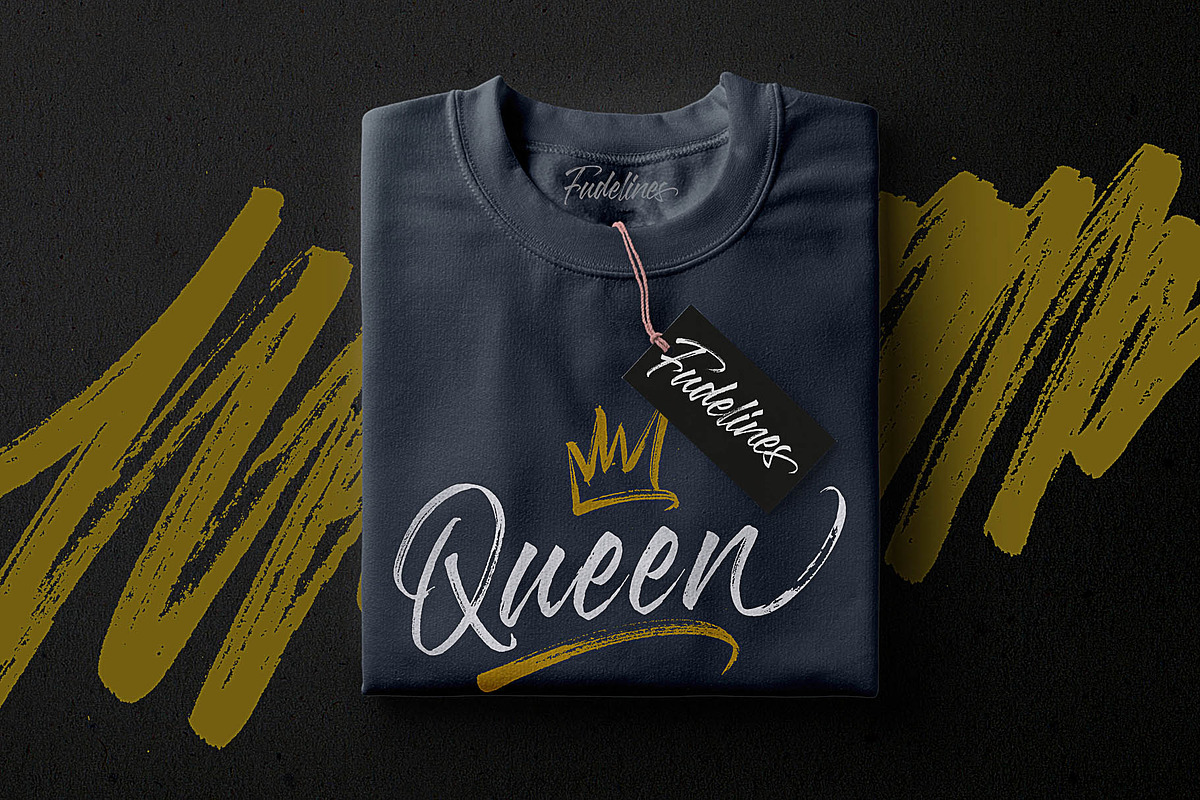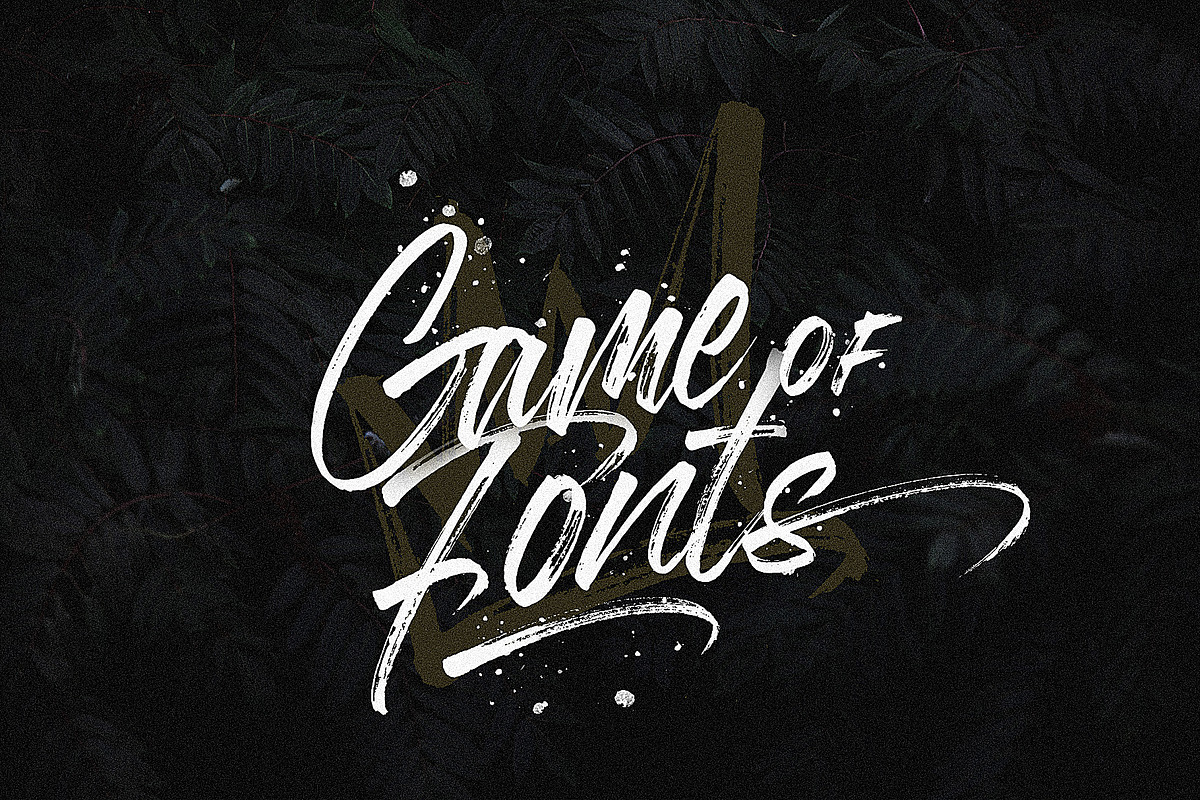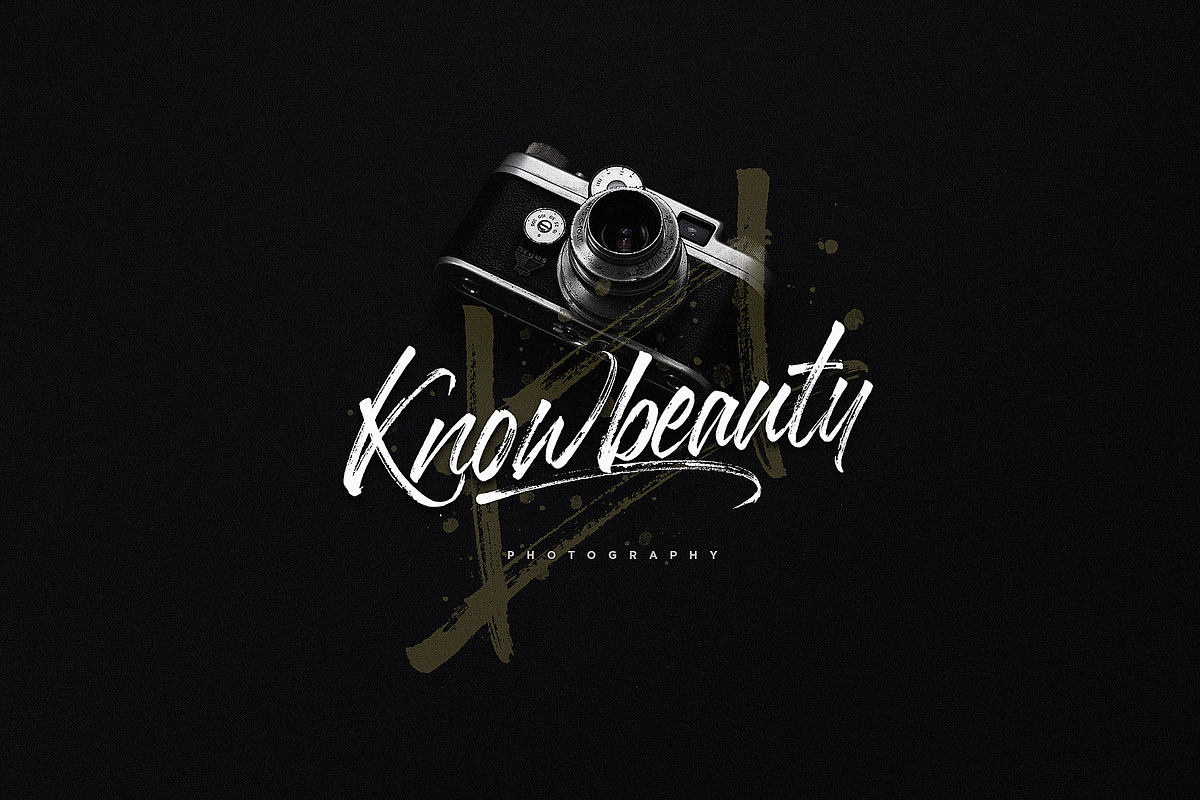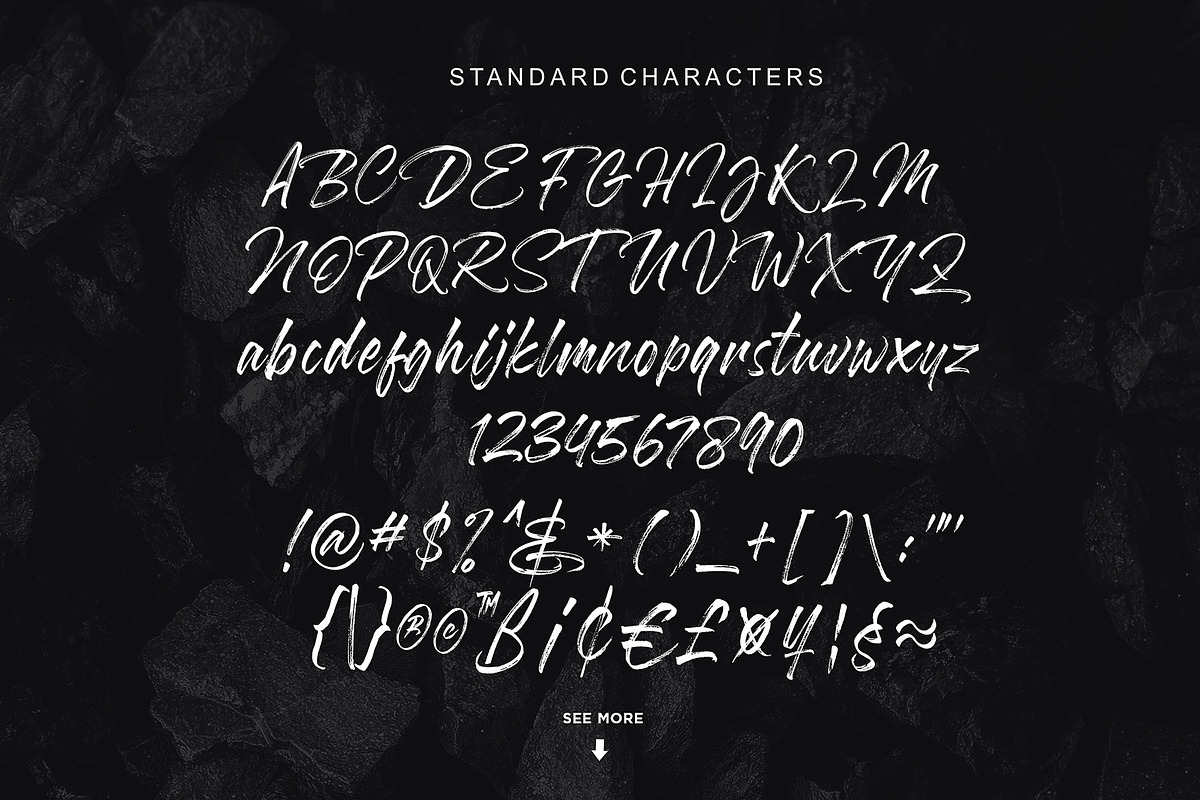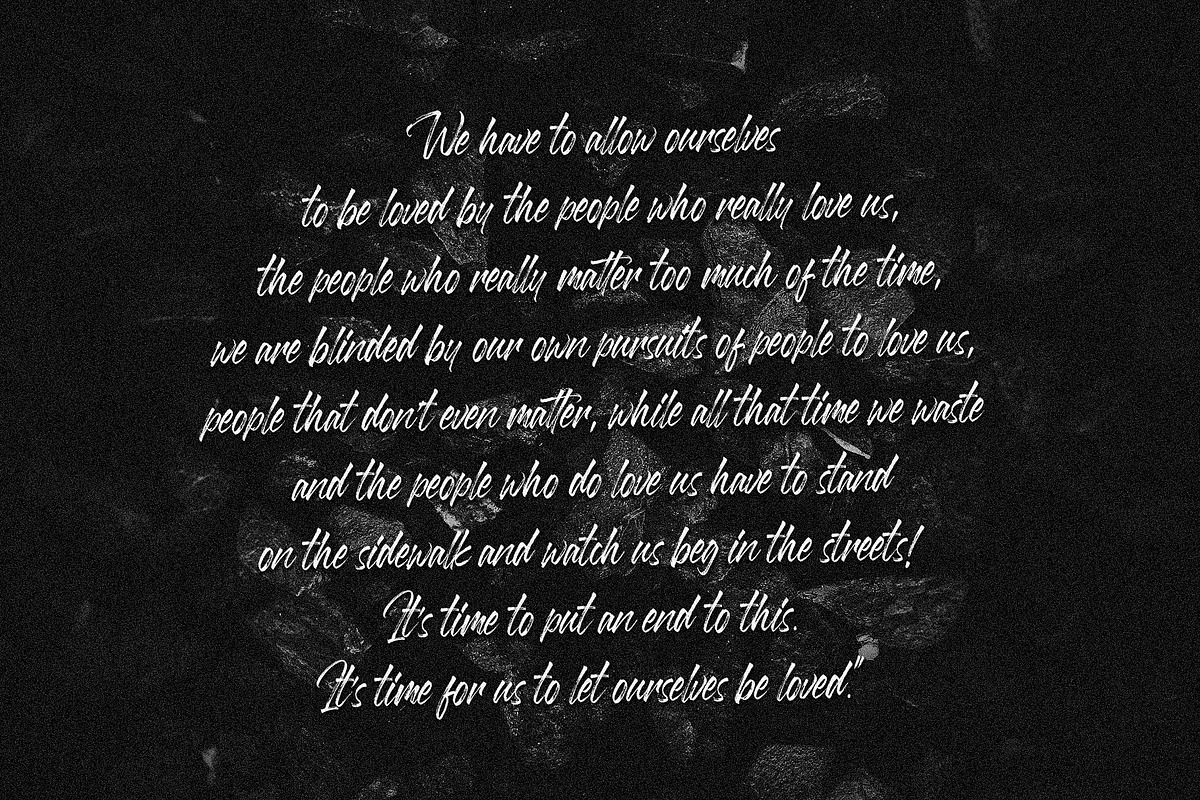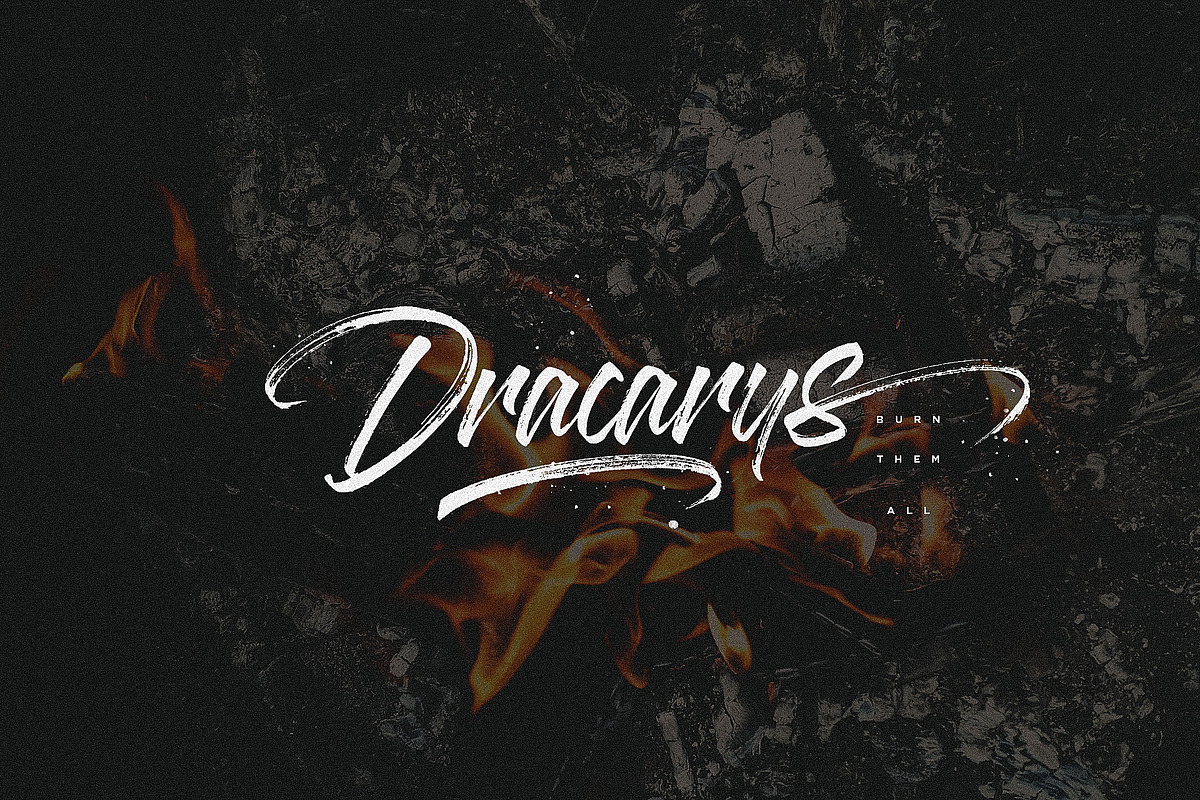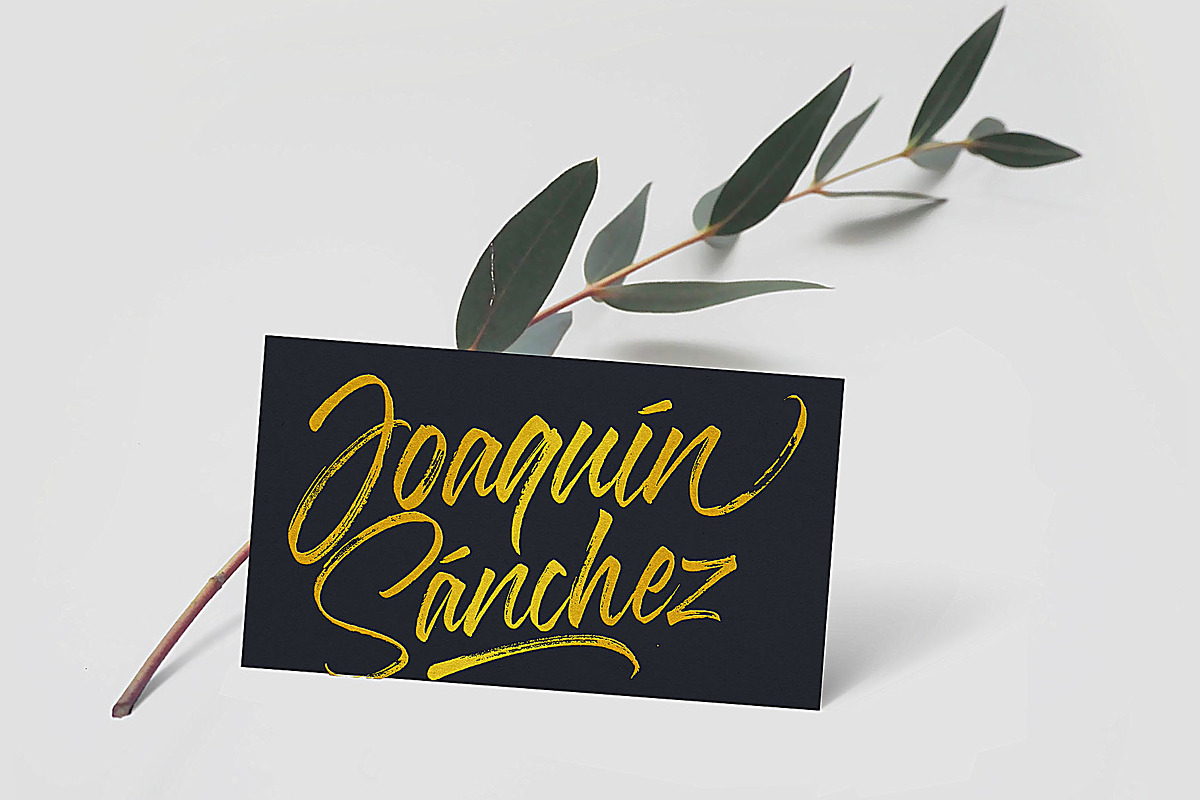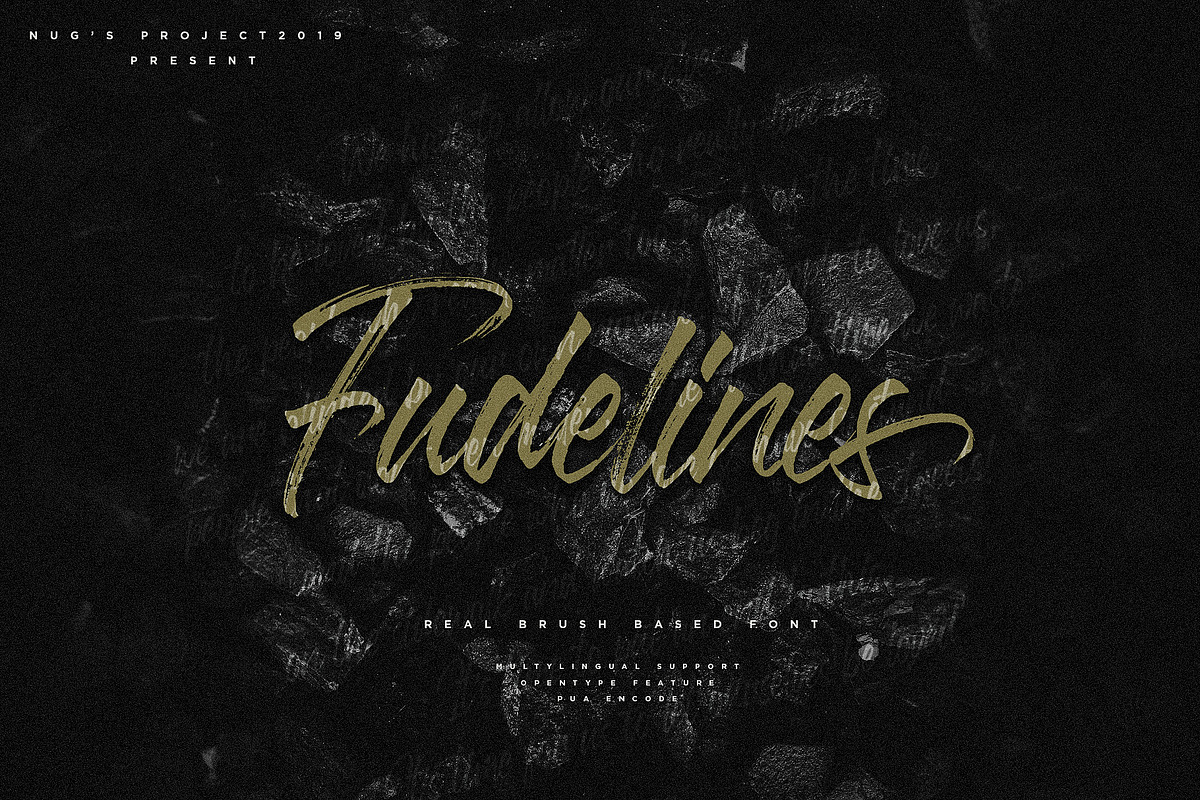
Fudelines Brush Font
Fudelines is a beautiful brush stroke font have consistent letters. font is perfect for your design such as printed pillow, t-shirt, video tumbnail, and others.
Fudelines Brush Font by NUGS fits naturally into Branding, posters, packaging, typography.